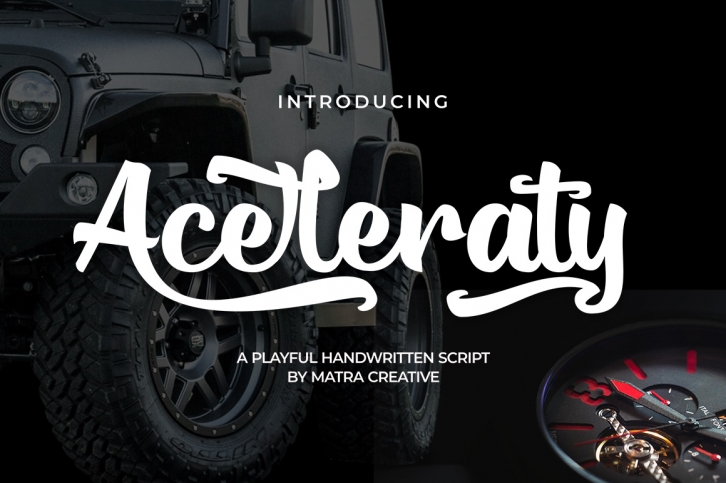
Aceleraty is a beautiful font that was designed by Matra Creative. It's a great choice for designers and creatives who need such a font. It was released on October 22, 2018 and the file size is 20.23 MB. Aceleraty may give a more youthful, expressive and casual look to your project. It is a very beautiful, refined, elegant, and high-quality font.